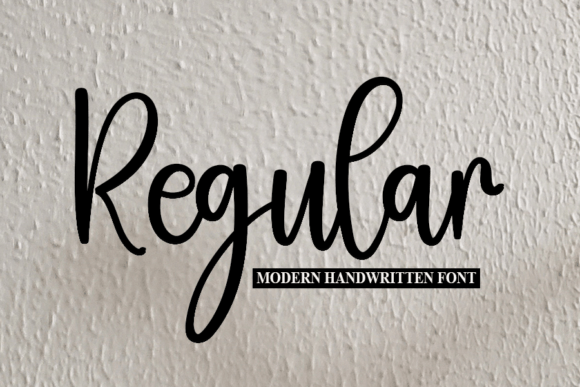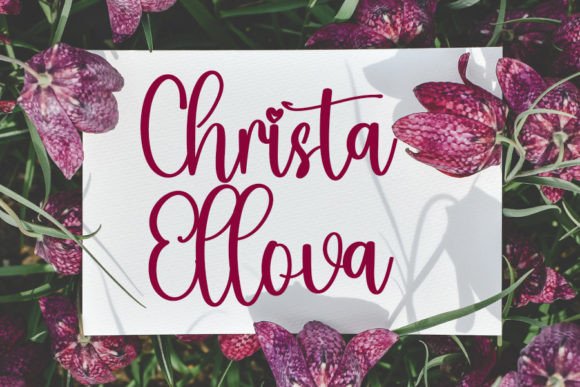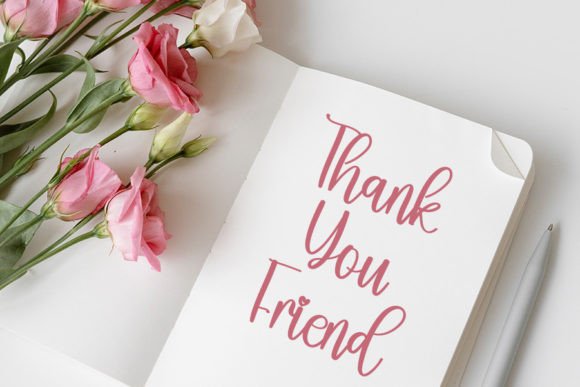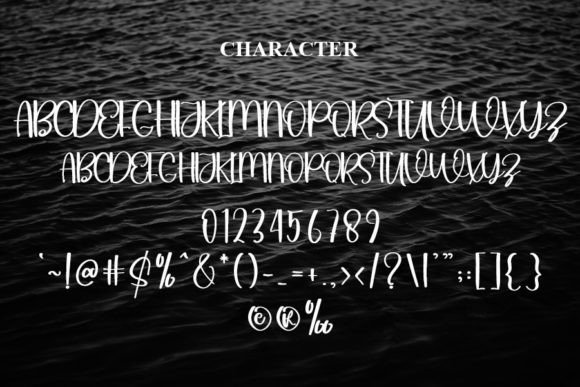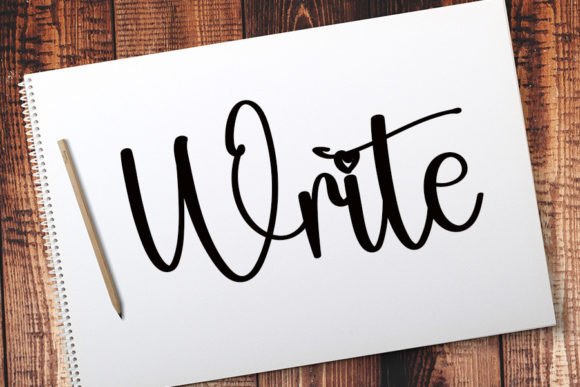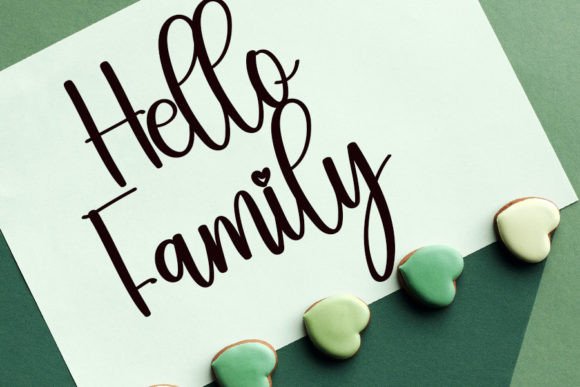
Regular Font
About Regular Font
Regular Font is a trendy handwritten typeface that combines a contemporary vibe with the timeless elegance of classic calligraphy. Its smooth and impeccable form makes it an excellent choice for adding sophistication to your creative projects. Whether you’re designing logos, invitations, branding, or social media content, Regular brings a refined and classy touch to your work.
Timeless Calligraphy with Modern Style
Regular captures the beauty of classic calligraphy while offering a fresh, modern appearance. Its balanced letterforms and graceful curves create a font that is both artistic and highly readable. This blend makes it ideal for designers who want to combine tradition with contemporary design trends.
Ideal Uses for Regular Font
This versatile font works well for:
• Logos and brand identities
• Wedding and event invitations
• Editorial layouts and magazine covers
• Social media graphics and digital marketing
• Personalized stationery and packaging
Regular adds elegance and class to any project it complements.
Why Choose Regular Font?
Designers appreciate Regular for its:
• Stylish handwritten strokes inspired by classic calligraphy
• Clear readability at various sizes
• Versatility across print and digital media
These features make Regular a practical and beautiful font choice.
Elevate Your Designs with Regular Font
Typography plays a crucial role in setting the tone of your projects. Regular offers a sophisticated and elegant personality that helps your designs make a lasting impression. Whether for weddings, branding, or editorial content, this font adds timeless beauty.
In conclusion, Regular Font is a trendy and elegant handwritten script that perfectly combines classic charm with modern design. Ideal for logos, invitations, and creative projects, Regular elevates your work with style and sophistication.